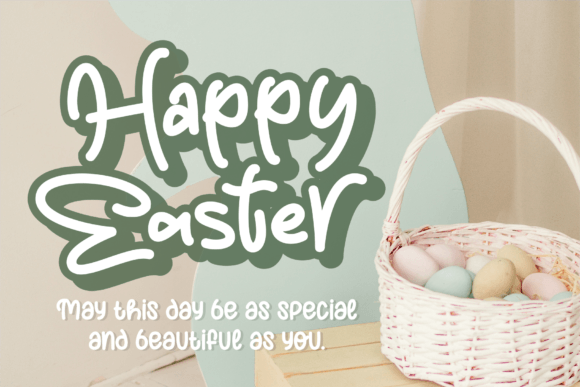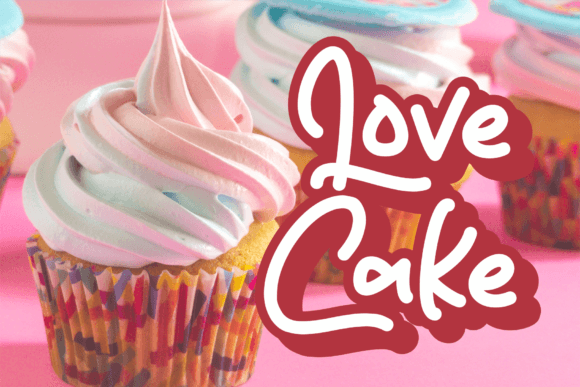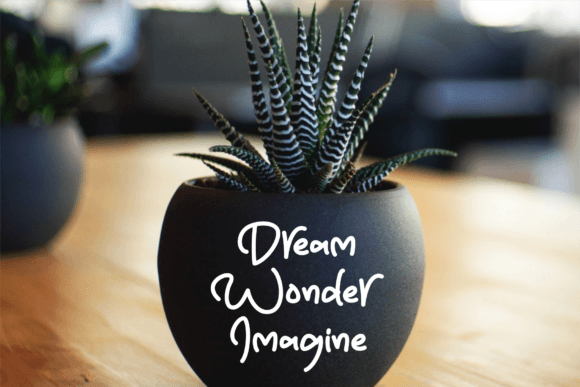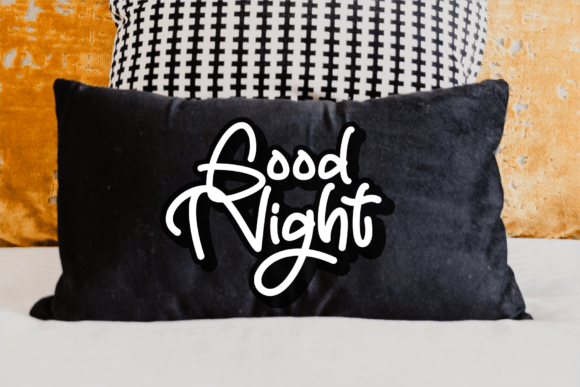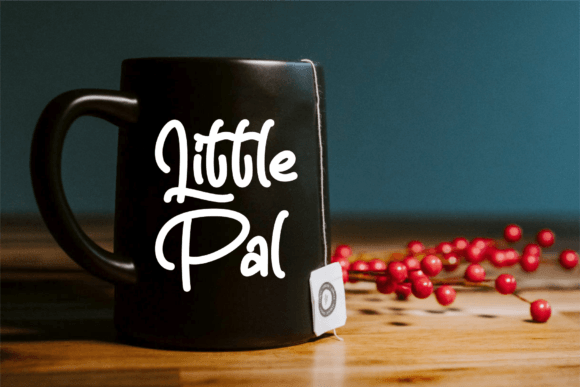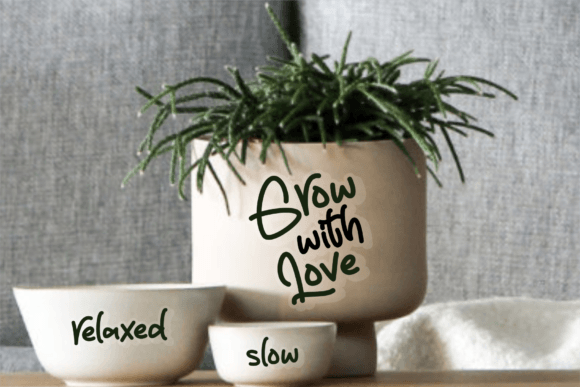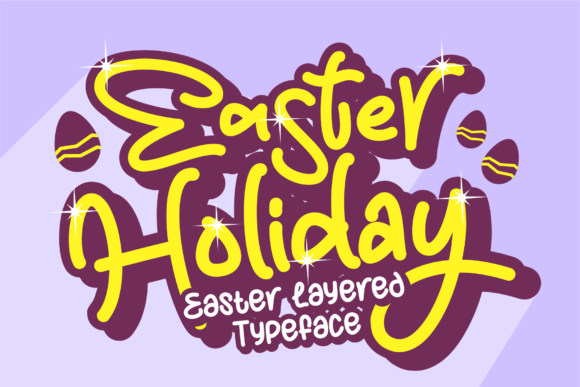
Easter Holiday Font: The Perfect Addition to Your Easter Designs
Are you looking for a font that will add a touch of whimsy and playfulness to your Easter designs? Look no further than the Easter Holiday Font! This adorable handwritten layered font is perfect for creating quotes, headings, blogs, logos, t-shirts, labels, and more. Its versatility and charm make it an ideal choice for designers and crafters alike.
What Makes Easter Holiday Font So Special?
The Easter Holiday Font is a cute and playful font that is sure to bring a smile to anyone’s face. Its handwritten style gives it a personal and friendly feel, making it perfect for designs that require a touch of warmth and personality. The font is also layered, which means you can customize it to your liking by adding or removing layers to create a unique look.
Perfect for Easter Designs
Easter is a time for bright colors, playful designs, and whimsical themes. The Easter Holiday Font is the perfect addition to any Easter design, whether you’re creating a logo, a label, or a social media post. Its Easter-themed design makes it a great choice for Easter-themed designs, such as Easter egg hunt posters, Easter sale signs, or Easter-themed party invitations.
Great for Children’s Designs
The Easter Holiday Font is also great for children’s designs, such as kids’ party invitations, coloring pages, or educational materials. Its playful and fun design makes it perfect for designs that require a touch of whimsy and imagination. Whether you’re a teacher, a parent, or a designer, this font is sure to delight kids of all ages.
Uses for Easter Holiday Font
The Easter Holiday Font is a versatile font that can be used in a variety of ways. Here are some ideas to get you started:
- Quotes and posters: Use the Easter Holiday Font to create inspiring quotes and posters for Easter.
- Logos and branding: Use the font to create a logo or brand identity for your Easter-themed business or product.
- T-shirts and apparel: Use the font to create fun and playful designs for Easter-themed t-shirts and apparel.
- Labels and packaging: Use the font to create labels and packaging for Easter-themed products.
- Blogs and social media: Use the font to create engaging and playful blog posts and social media graphics for Easter.
Why Choose Easter Holiday Font?
There are many fonts to choose from, but the Easter Holiday Font stands out from the rest. Here are some reasons why:
- Unique design: The Easter Holiday Font has a unique and playful design that is sure to stand out.
- Versatility: The font is versatile and can be used in a variety of ways.
- High-quality: The font is high-quality and is sure to look great in any design.
The Easter Holiday Font is a great addition to any designer’s collection. Its playful and whimsical design makes it perfect for Easter-themed designs, children’s designs, and more. With its versatility and ease of use, it’s a font that you’ll want to use again and again. So why wait? Download the Easter Holiday Font today and start creating your own Easter designs!
Tips and Tricks for Using Easter Holiday Font
Here are some tips and tricks for using the Easter Holiday Font:
- Experiment with different colors: The Easter Holiday Font looks great in bright and pastel colors.
- Mix and match: Mix and match the font with other fonts and graphics to create a unique look.
- Use it for kids’ designs: The font is perfect for kids’ designs, such as coloring pages or educational materials.
- Use it for Easter-themed designs: The font is perfect for Easter-themed designs, such as Easter egg hunt posters or Easter sale signs.